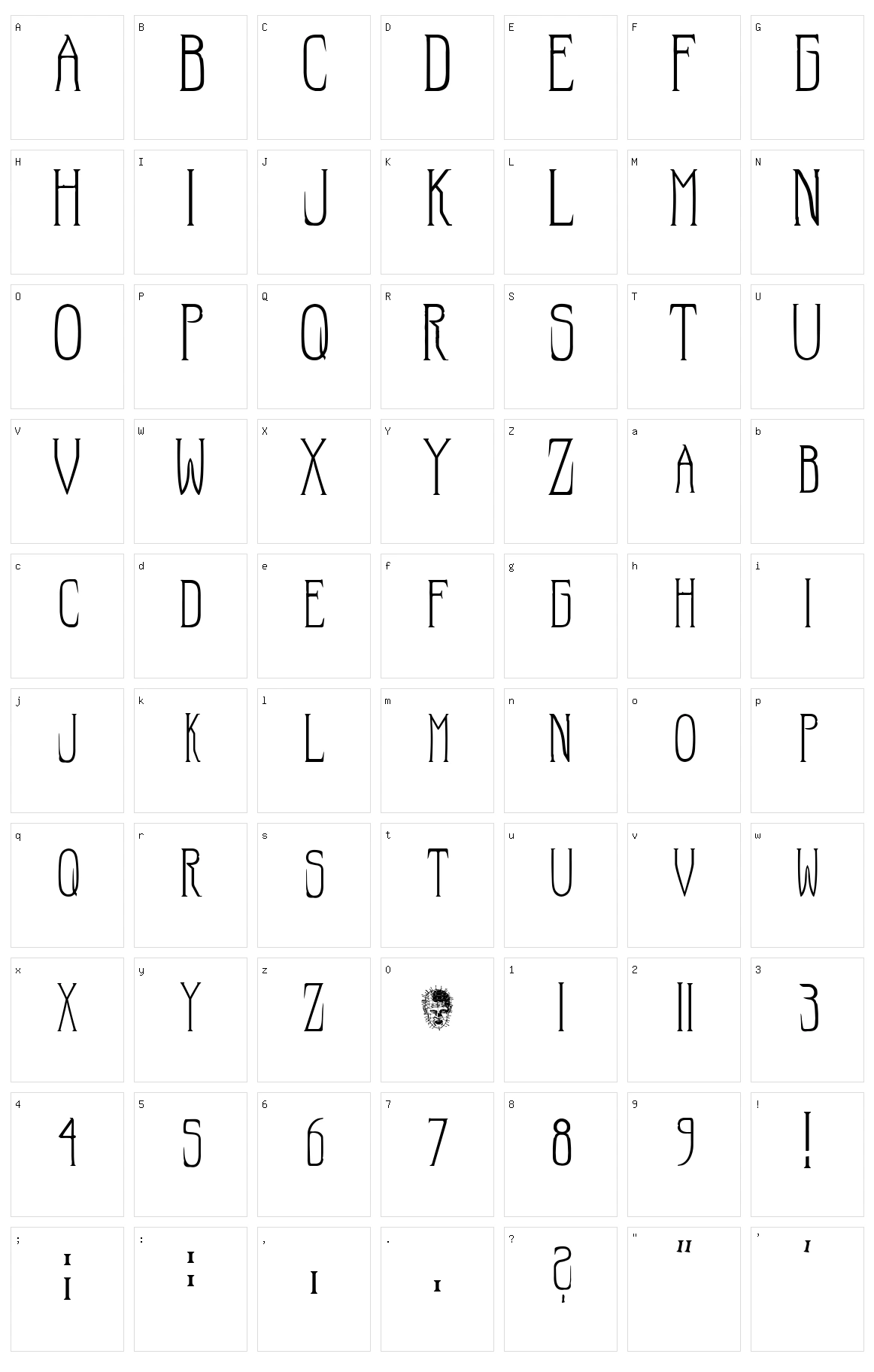
Hellraiser
Description: The free font Hellraiser is carefully designed by Norfok Incredible Font Design, showcasing a thoughtful balance of creativity and usability and belongs to the Gothic font family. When you download the ZIP file, it contains only 37.38 KB of font files, making it lightweight and quick to download. Please review the license details below to understand permitted usage and distribution rights. If license information is not available, we recommend using this font for personal projects only or contacting the author directly for commercial usage permissions.